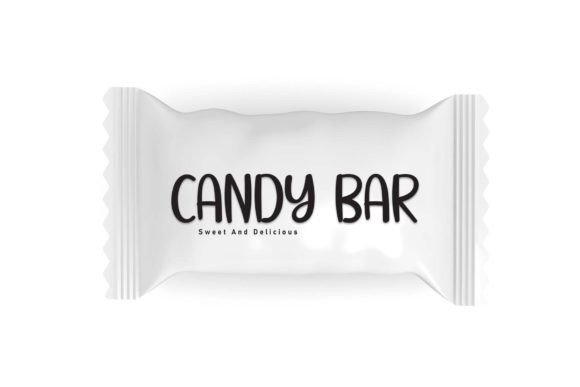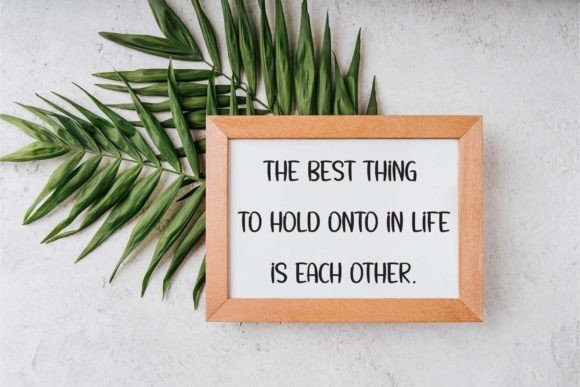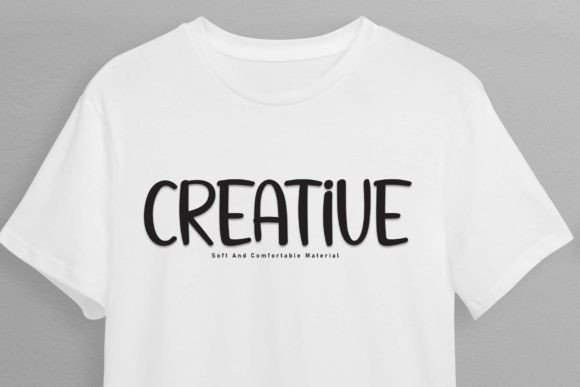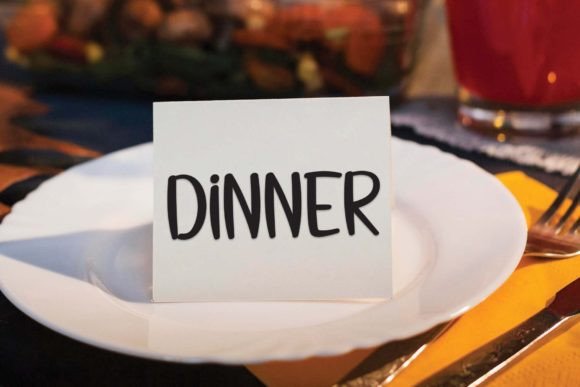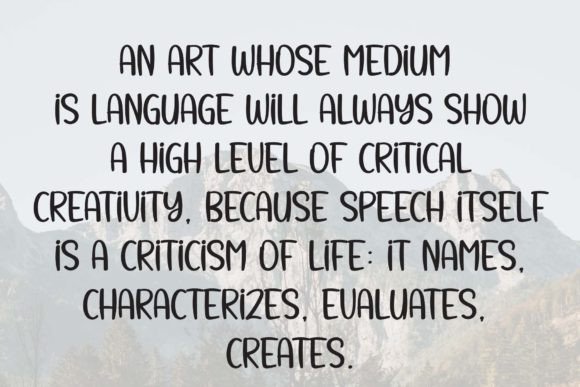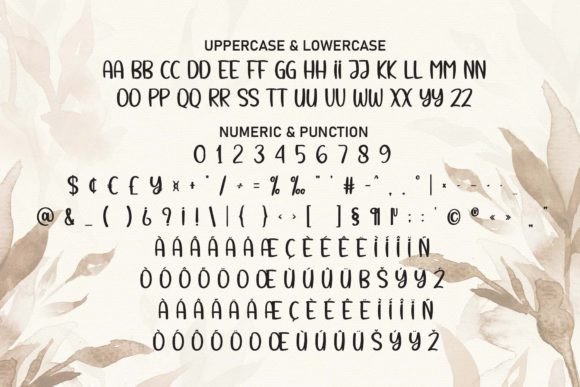
Introduction to Happy Boho Font
Happy Boho is a sweet and friendly handwritten font.
Cute and versatile, this font is ideal for writing wedding invitations, cards, or any other design that might need a fun touch .